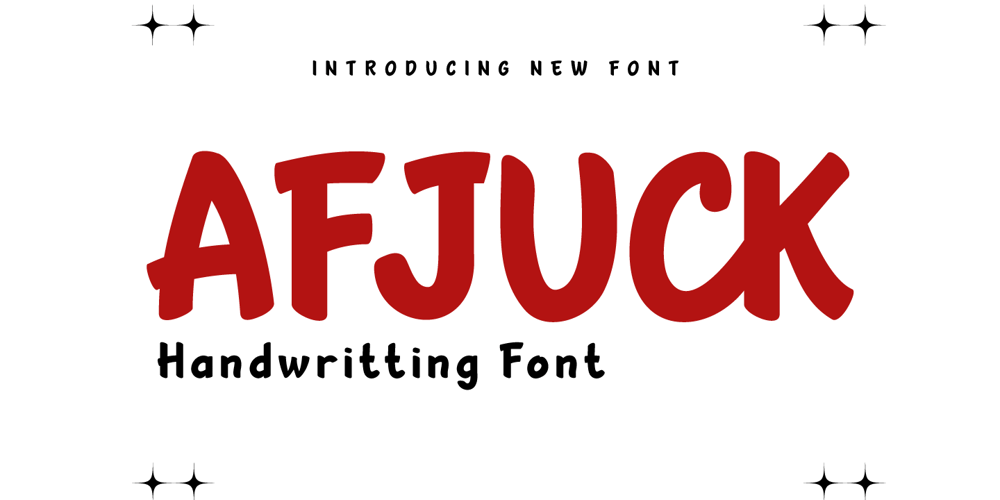
AFJUCK Font Family was designed by Rozikan and published by Twinletter. AFJUCK contains 1 styles and family package options. Introducing AFJUCK Font – a captivating display typeface that effortlessly captures the essence of authentic handwriting! Elevate your projects with the artistic touch of AFJUCK, a perfect blend of style and individuality. Explore AFJUCK now to see your creations spring to life!What’s Included : File font All glyphs Iso Latin 1 Alternate, Ligature Simple installations PUA Encoded Characters – Fully accessible without additional design software. Fonts include Multilingual support